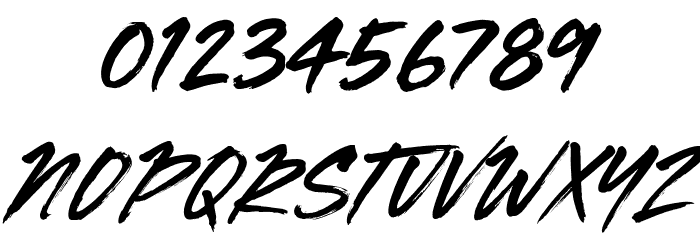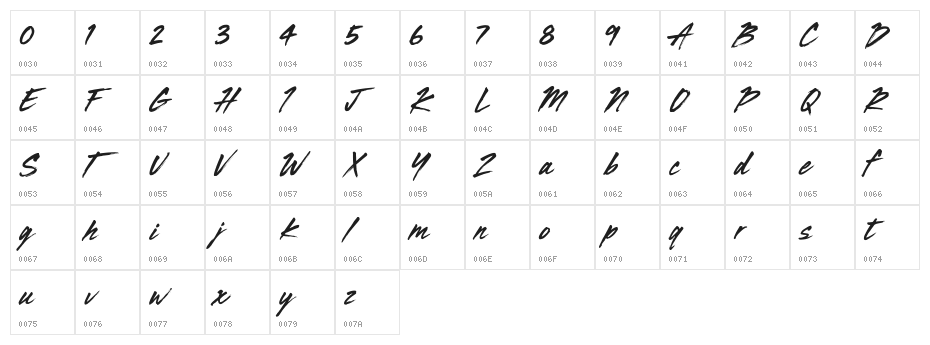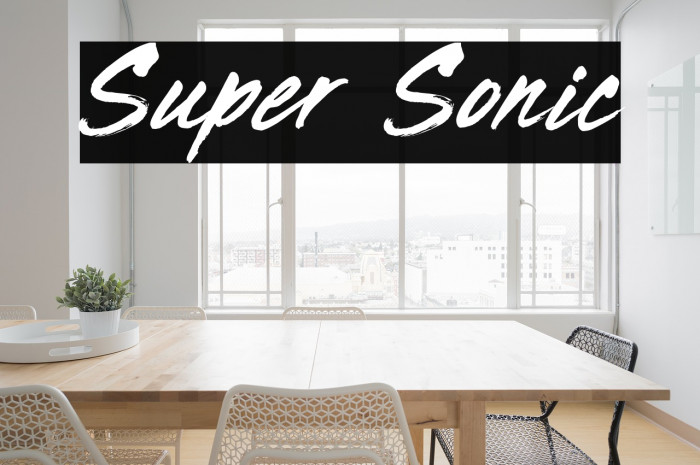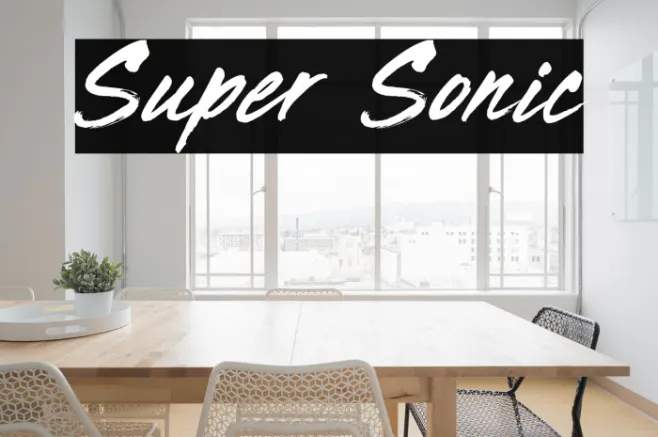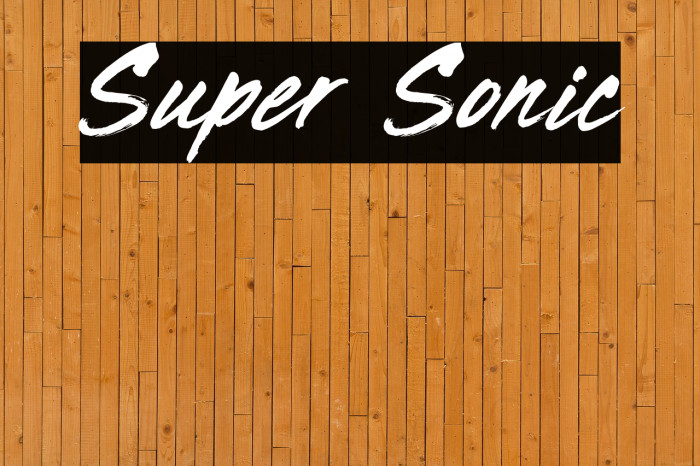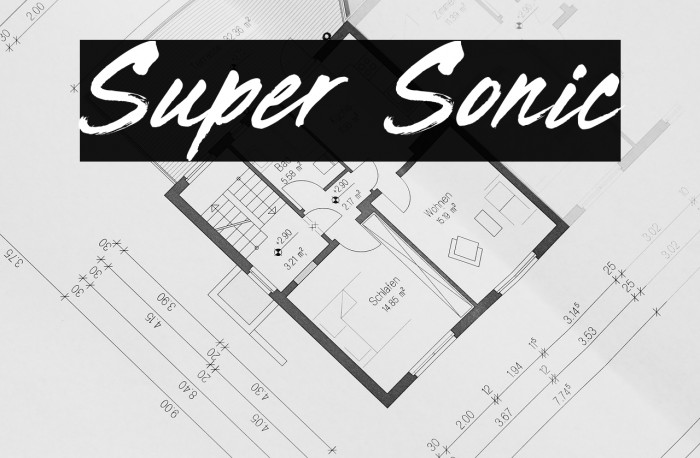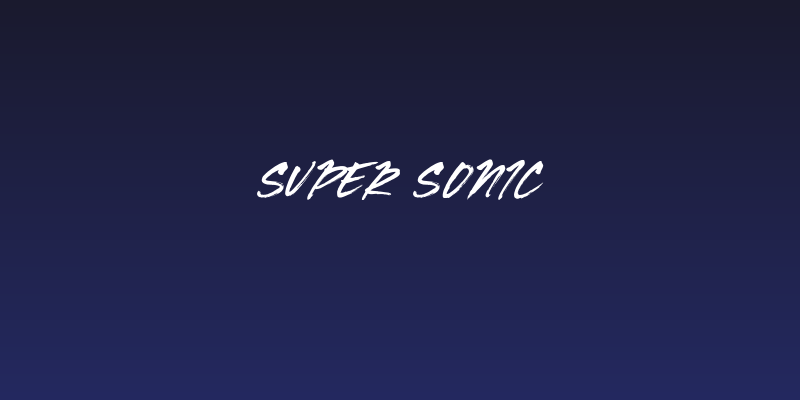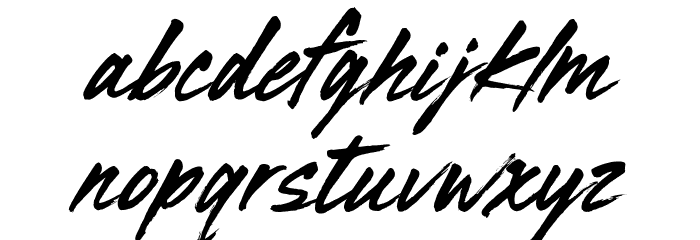
Super Sonic Font
Super Sonic Description
This dynamic and energetic font features a bold, brush-like script that exudes a sense of speed and motion. The strokes are thick and expressive, with a slightly irregular baseline that adds to its hand-drawn appeal. Each character is crafted with a sense of urgency, making it ideal for designs that require a strong, impactful presence. The uppercase and lowercase letters maintain a consistent style, while the numerals and special characters complement the overall aesthetic. This font is perfect for projects that need a touch of excitement and flair.
| Proposed Projects | Ideal for sports branding, event posters, dynamic logos, and eye-catching headlines. |